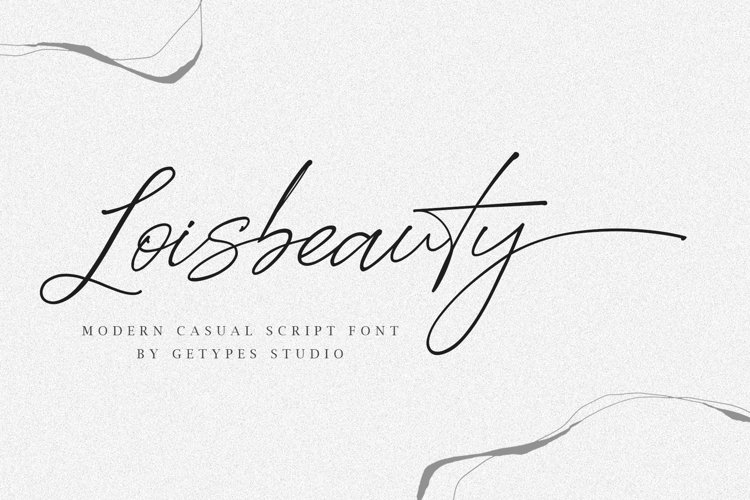
Loisbeauty is a stylish calligraphy font with a chic flair. This versatile font has a wide spectrum of applications ranging from greeting cards to headlines and is guaranteed to add a romantic feel to your next project.